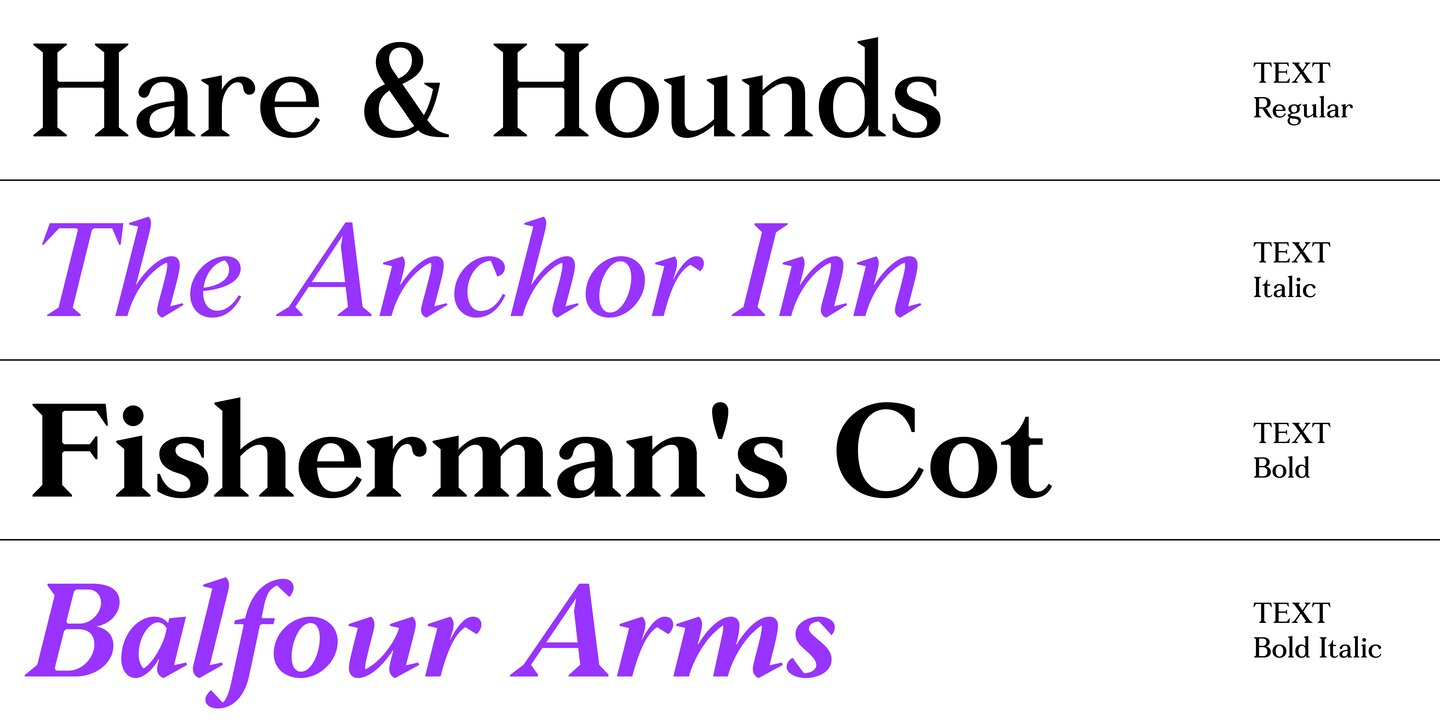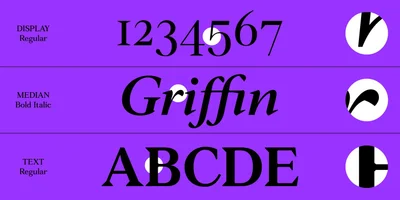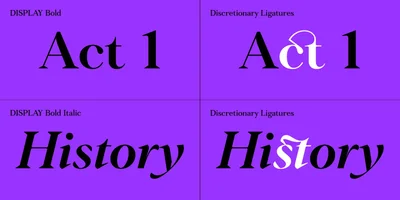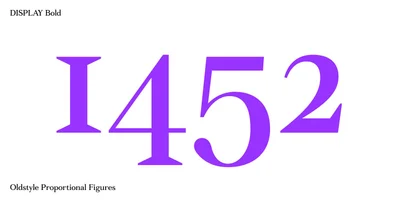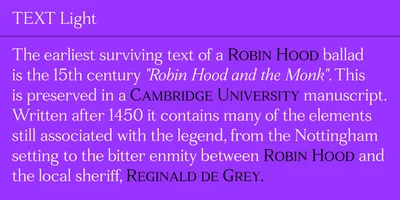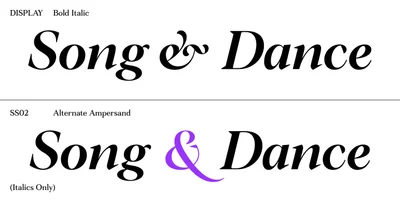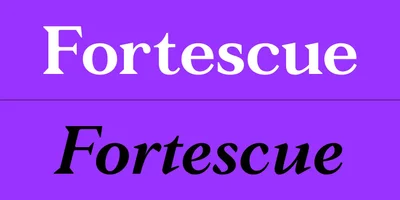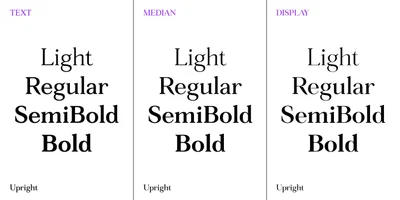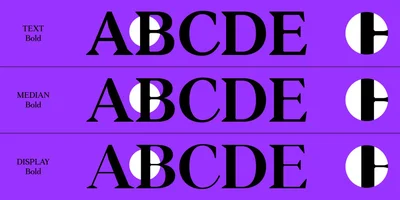
Baskerville vs Fortescue
Baskerville and Fortescue are both serif typefaces sharing a editorial foundation. Where Baskerville leans transitional, Fortescue brings humanist. Compare which suits your Editorial project.
| Feature | Baskerville | Fortescue |
| Source | Monotype | Colophon Foundry |
Recommended: Baskerville
- transitional design character
- Suited for Book Design and Corporate
- From monotype
Consider: Fortescue
- humanist design character
- Suited for Books and Publishing
- From colophon